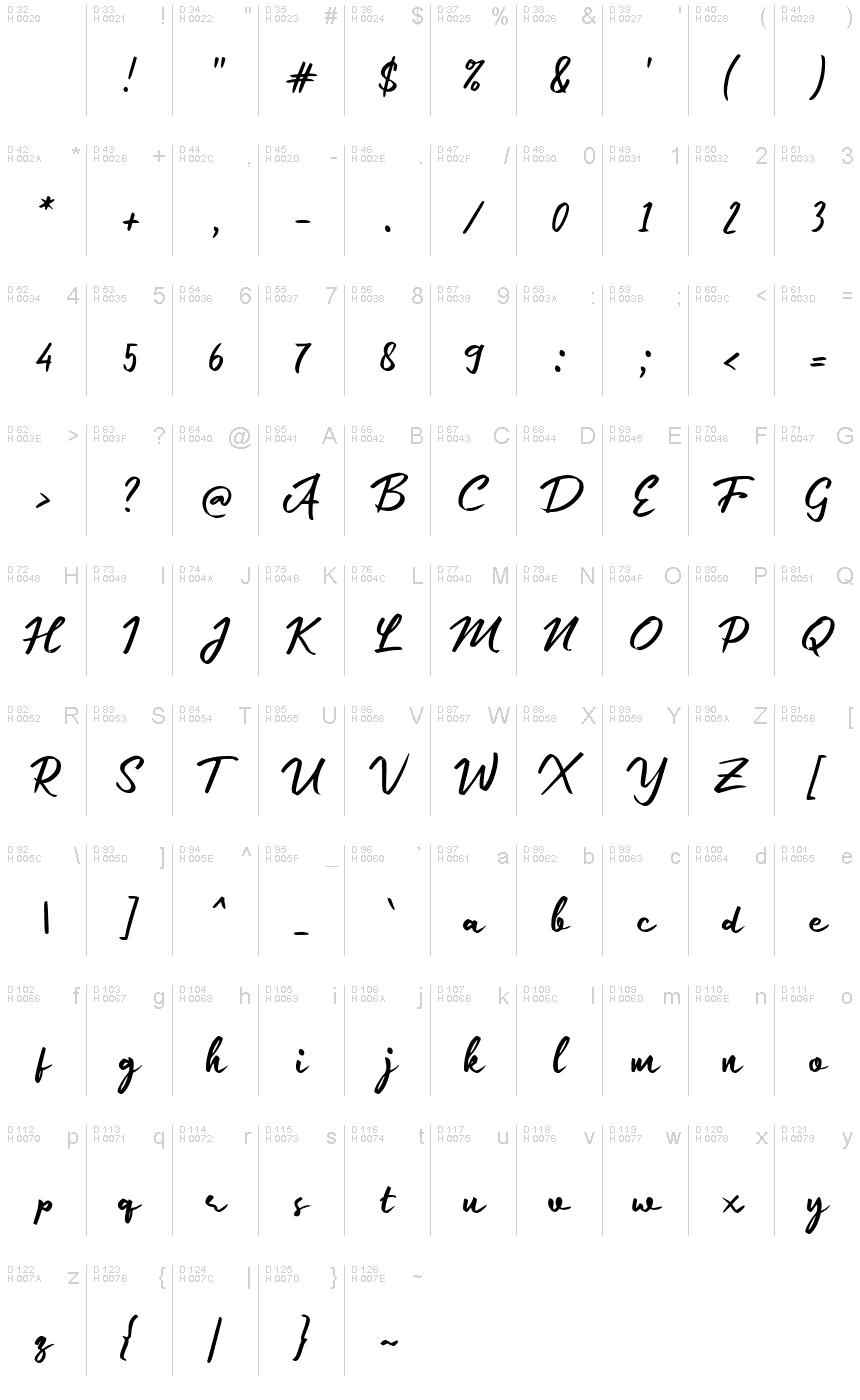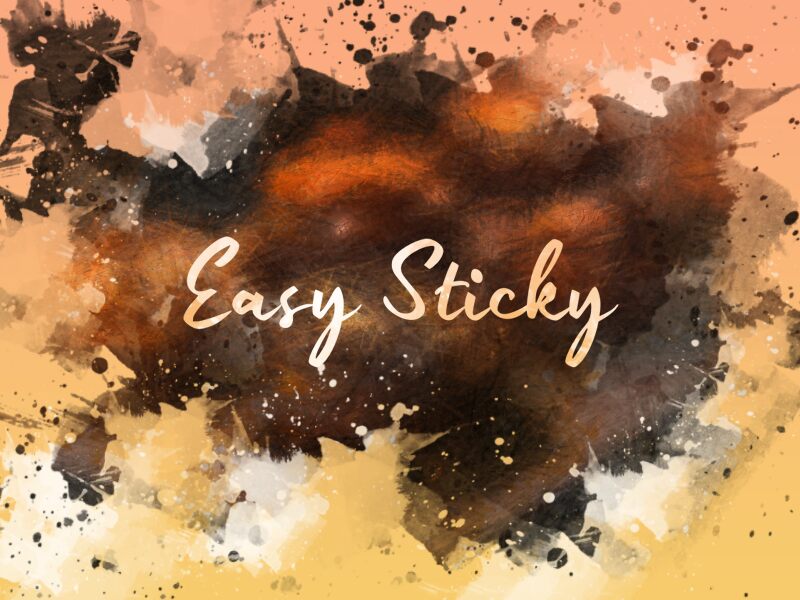
Easy Sticky
Easy Sticky is a charming and playful handwritten font designed by wep. With its semi-light weight, this font is perfect for a variety of projects such as greeting cards, invitations, social media graphics, and more. Its quirky and casual style adds a personal touch to any design while maintaining legibility. Whether you're looking to create an eye-catching logo or add some personality to your blog posts, Easy Sticky is the ideal choice. So let your creativity flow with this versatile semi-light handwritten typeface!